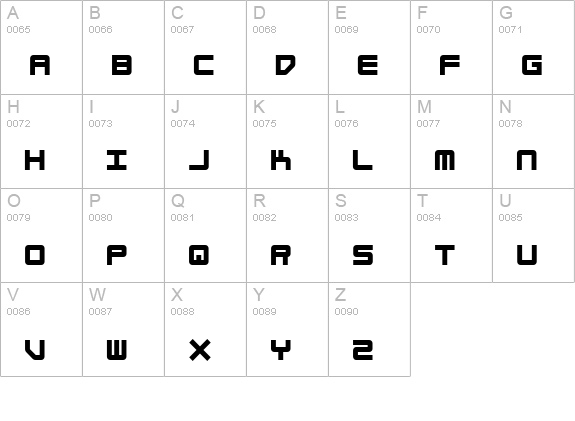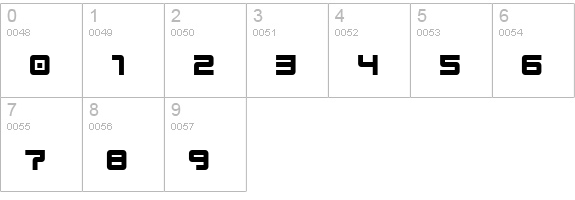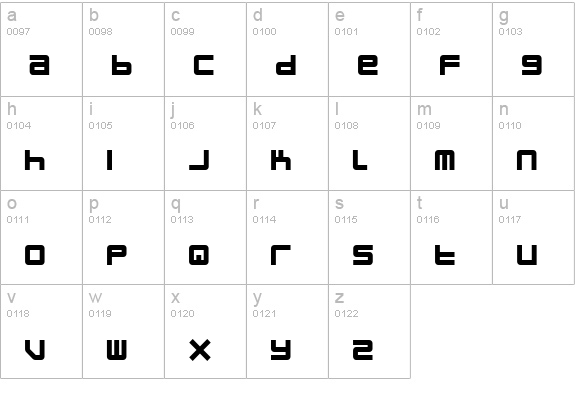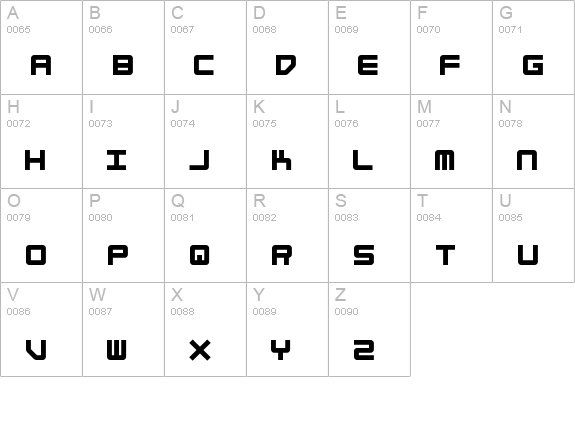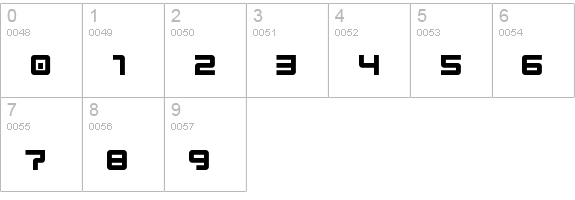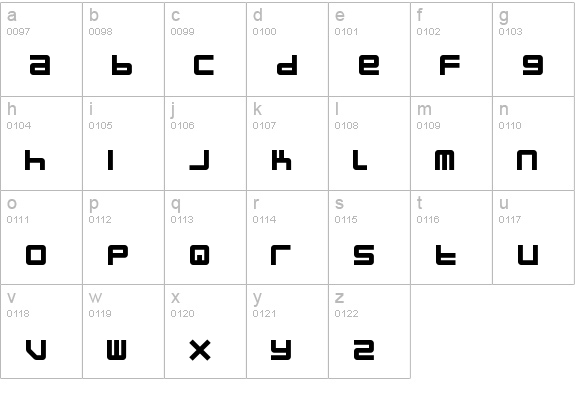
blockit Normal is the standard, neutral variant in the blockit typeface family \xE2\x80\x94 well suited to general body text, paragraphs, and standard typographic work.
Blockit Normal font is a versatile and stylish typeface that is perfect for a wide range of design projects. With its clean lines and modern look, this font is sure to make your text stand out. Whether you're working on a poster, flyer, website, or any other project, Blockit Normal font will add a touch of sophistication and professionalism. The best part is that Blockit Normal font is available for free download at FontsMarket.com. This means you can start using this beautiful font in your projects right away, without having to worry about any additional costs. So why wait? Download Blockit Normal font today and take your designs to the next level!